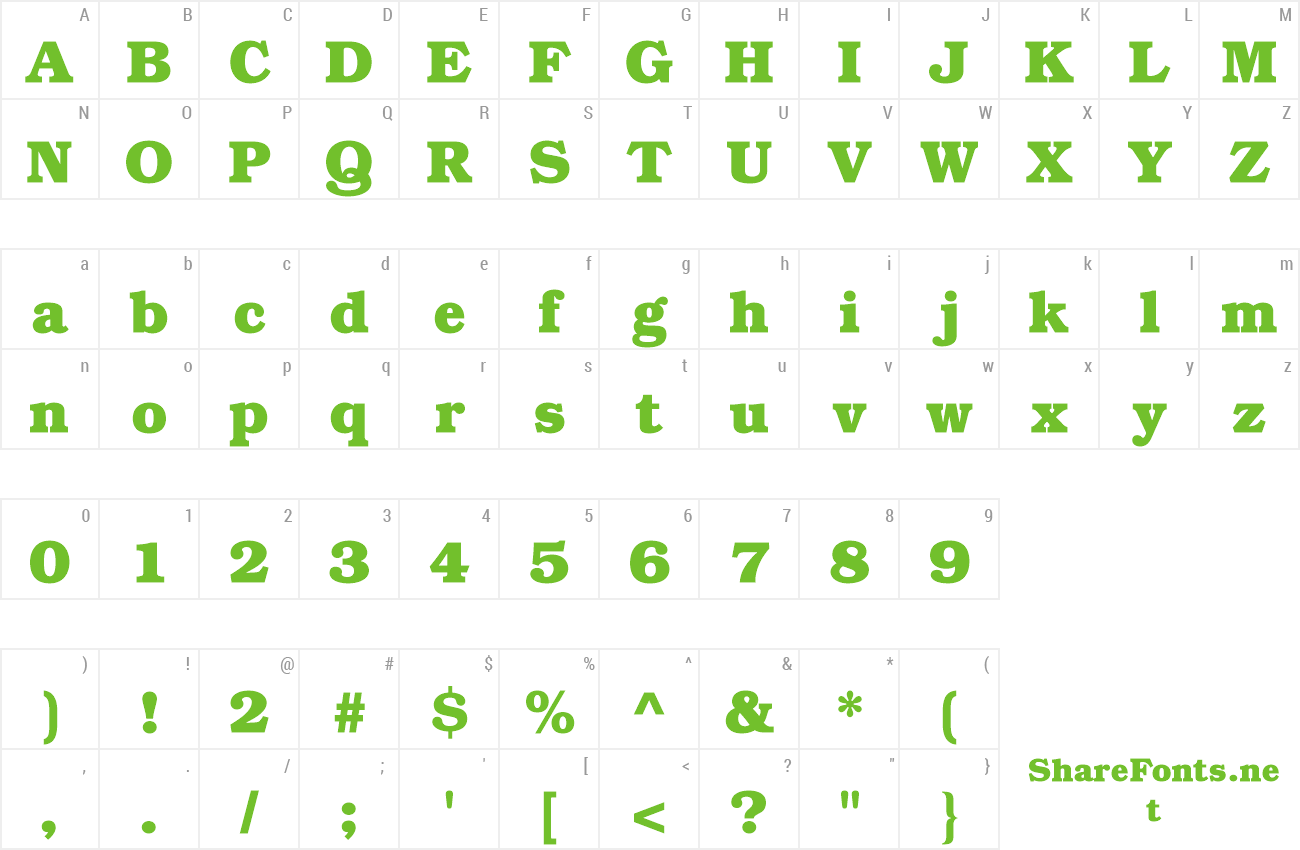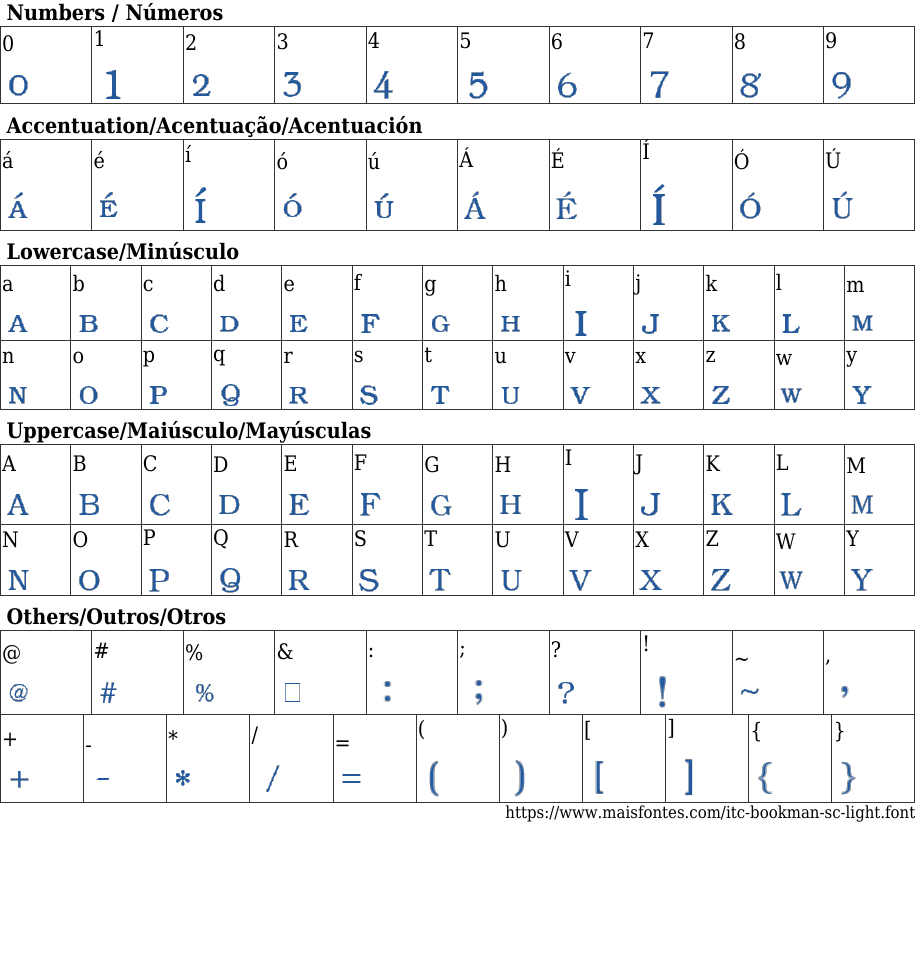
Bookman Itc Font
Bookman Itc Font - Itc bookman font family was designed by edward benguiat and published by itc. Discover and download free bold, itc bookman fonts. Now, opentype technology has allowed the release of a complete version of itc bookman,. Enhance your design projects with our. Itc bookman was an instant success when it was first released in 1976.